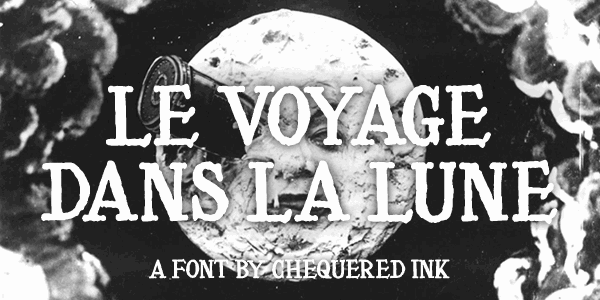
Free Le Voyage Dans La Lune Font
Introducing you to the absolutely beautiful free le voyage dans la lune font. This is a downloadable free typeface file brought to you by Font Space. This is absolutely fancy font so you can easily make world-class designs.